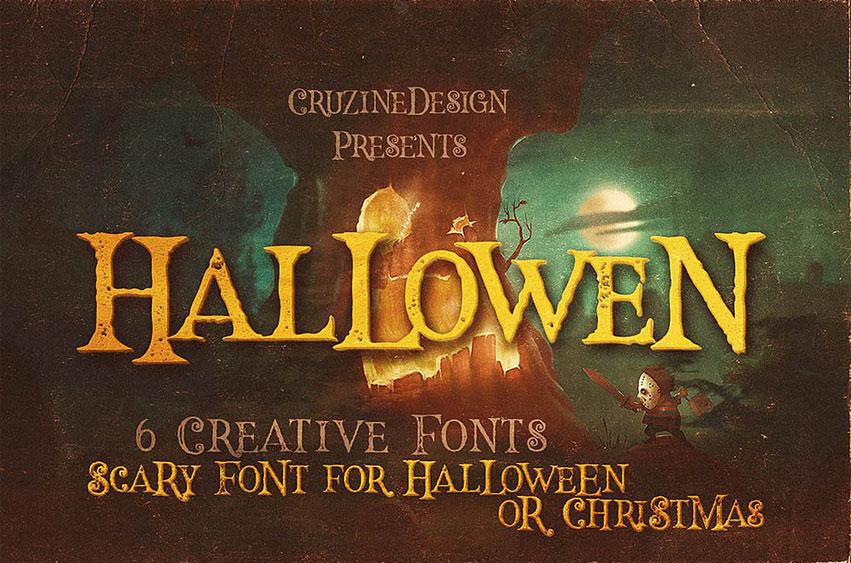
Hallowen Typeface Font
Hallowen Typeface Font Retro, vintage or grunge style display font for your new projects.
Great for your Christmas or Halloween projects!